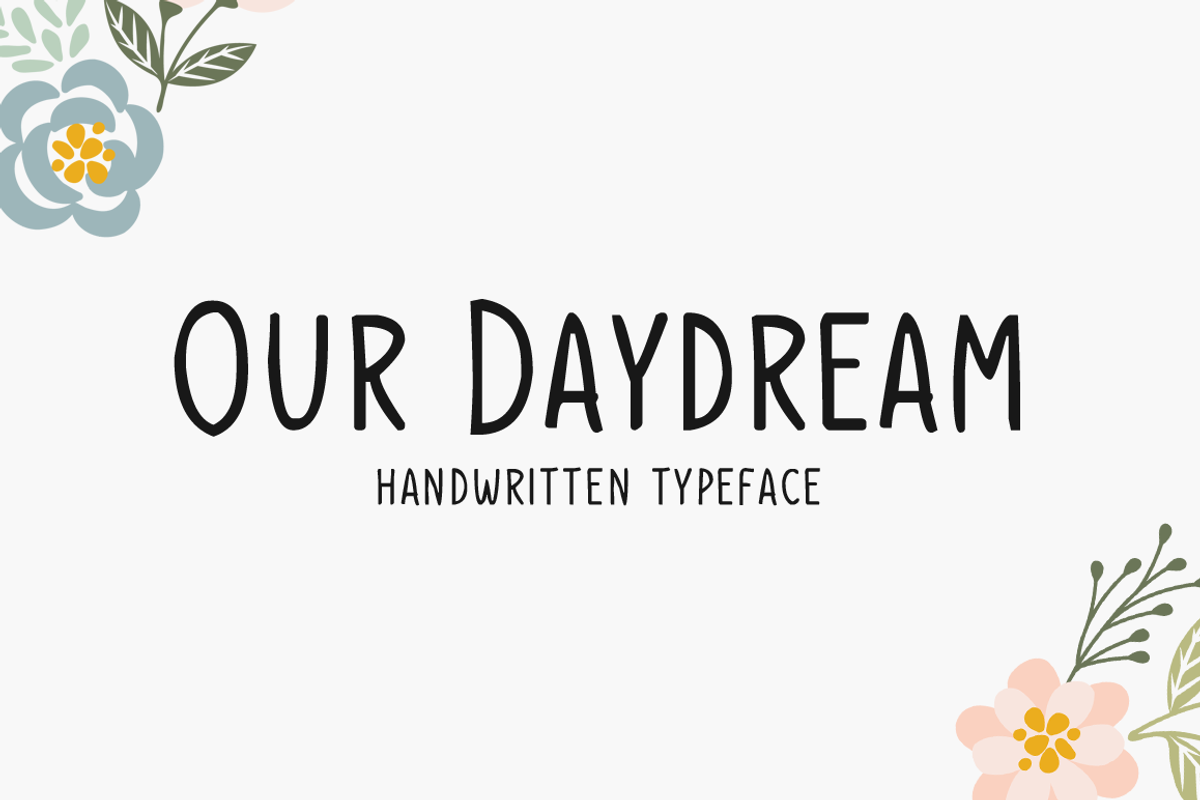
Please note, to use this font for commercial purposes, you must purchase the full version. Our Daydream is a whimsical and elegant typeface that combines charm with a playful style. Perfect for logos, invitations, posters, and branding materials, this font adds a creative and dreamy touch to any project. Whether you're working on a personal blog, a whimsical event invitation, or a fun branding project, Our Daydream brings personality and flair to your designs. Test it out and enjoy free download access for personal use. Experience the enchanting style of Our Daydream Typeface Free Download before purchasing the commercial license. Bring a dreamy, creative feel to your designs with this beautiful font.